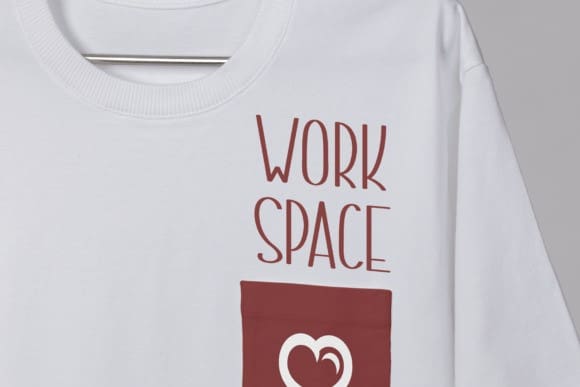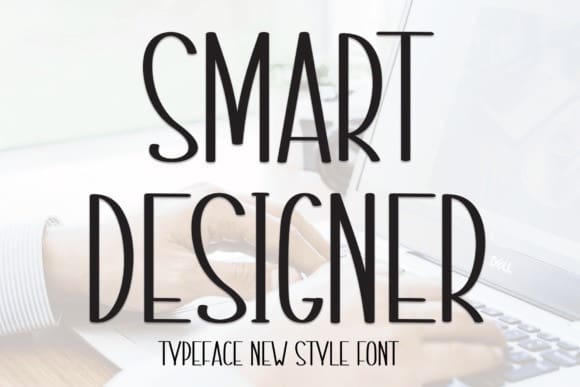
Smart Designer Font
Smart Designer Font,  perfect for wall displays, wedding invitations, social media post logos, advertisements, product packaging, product designs, labels, photography, watermarks, invitations, stationery, and any project that requires a taste for handwriting.